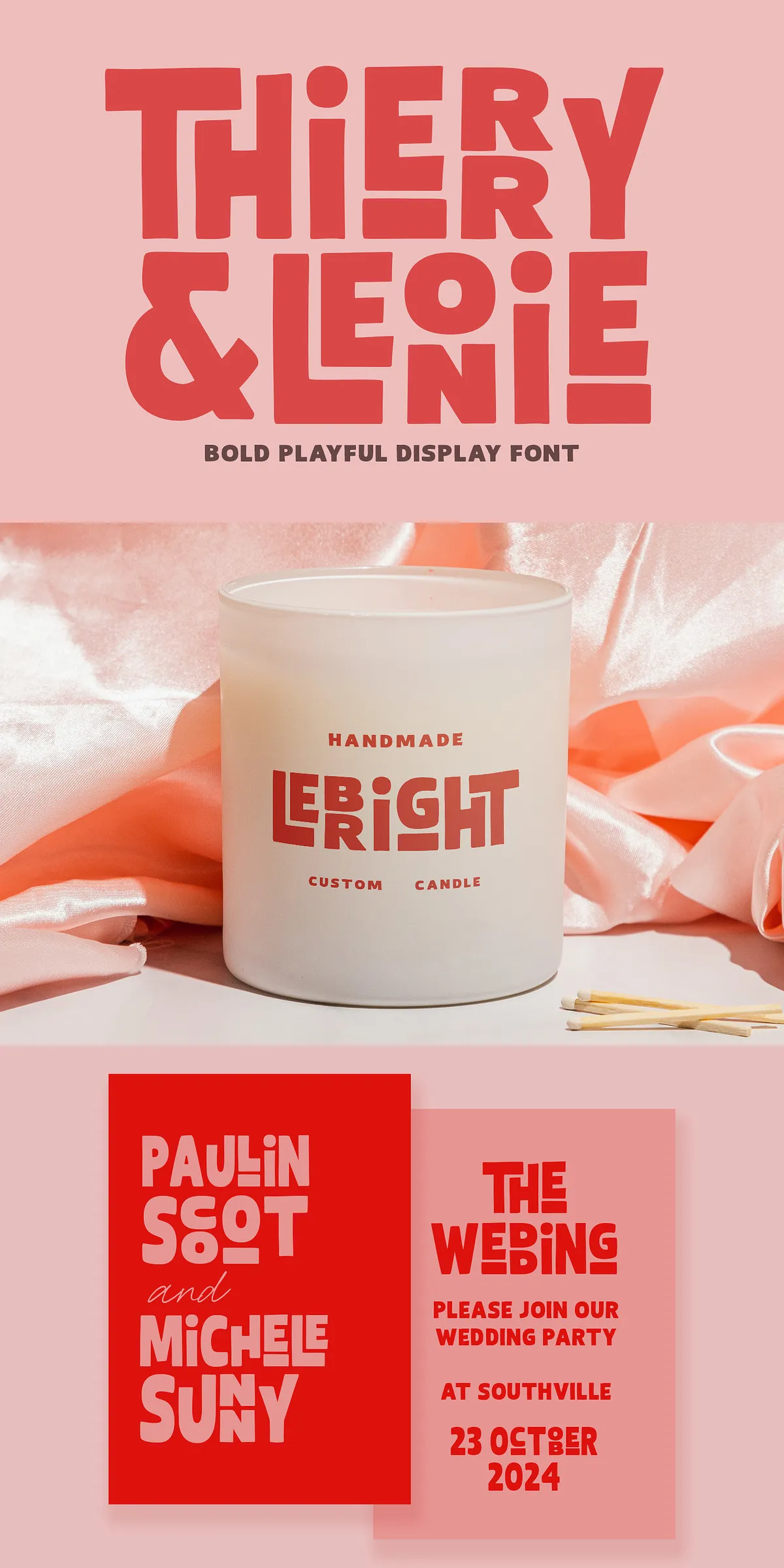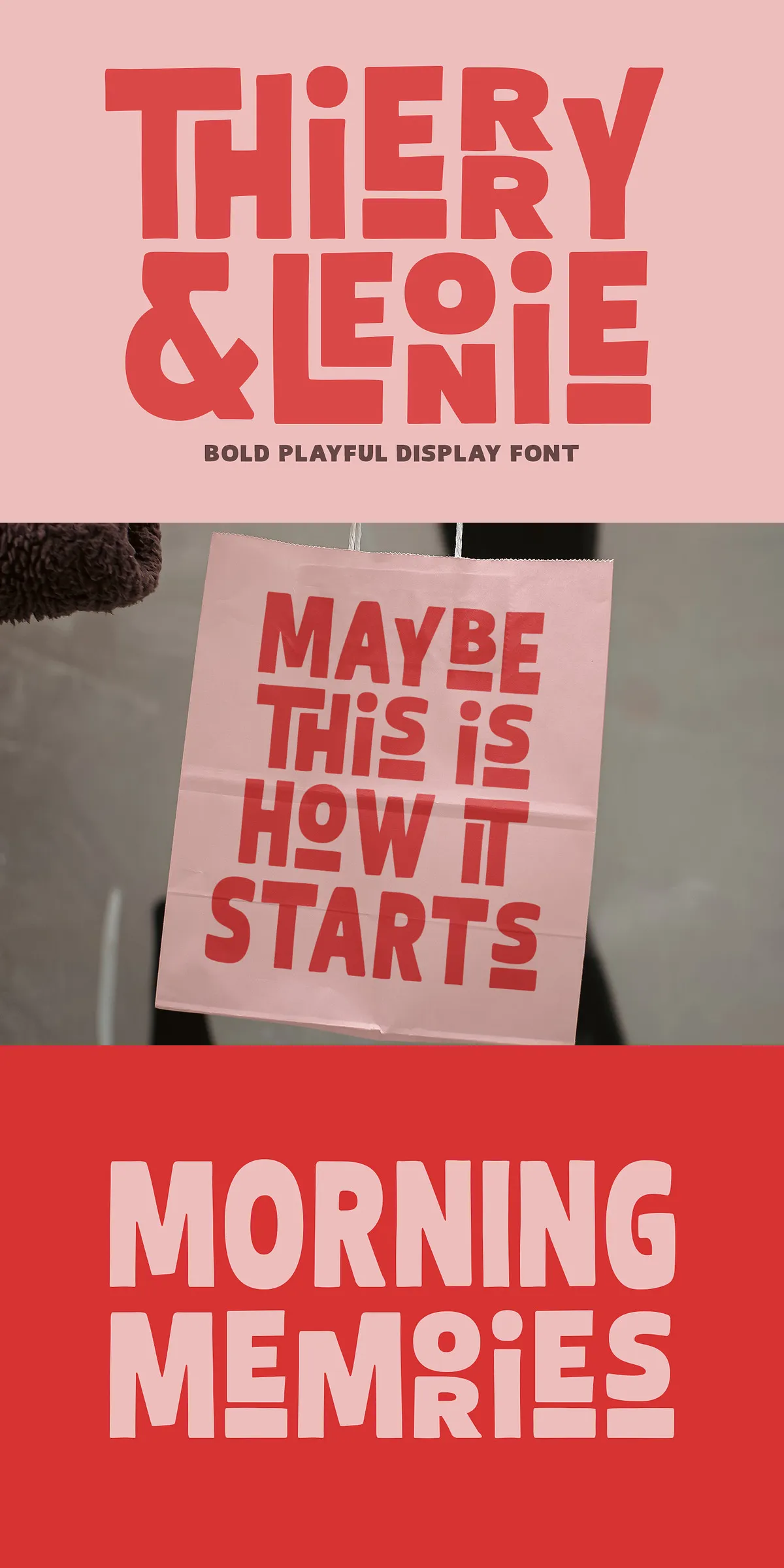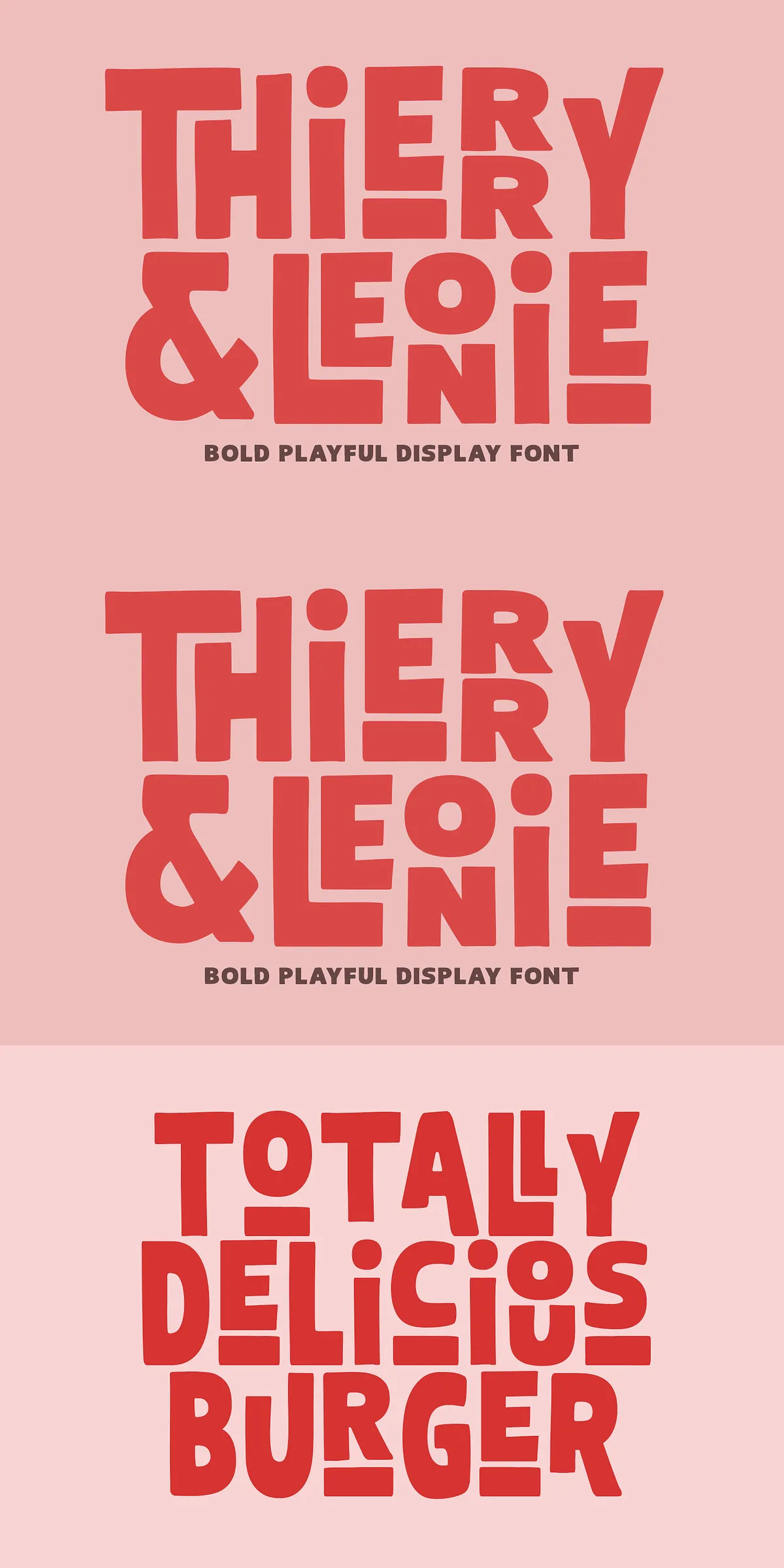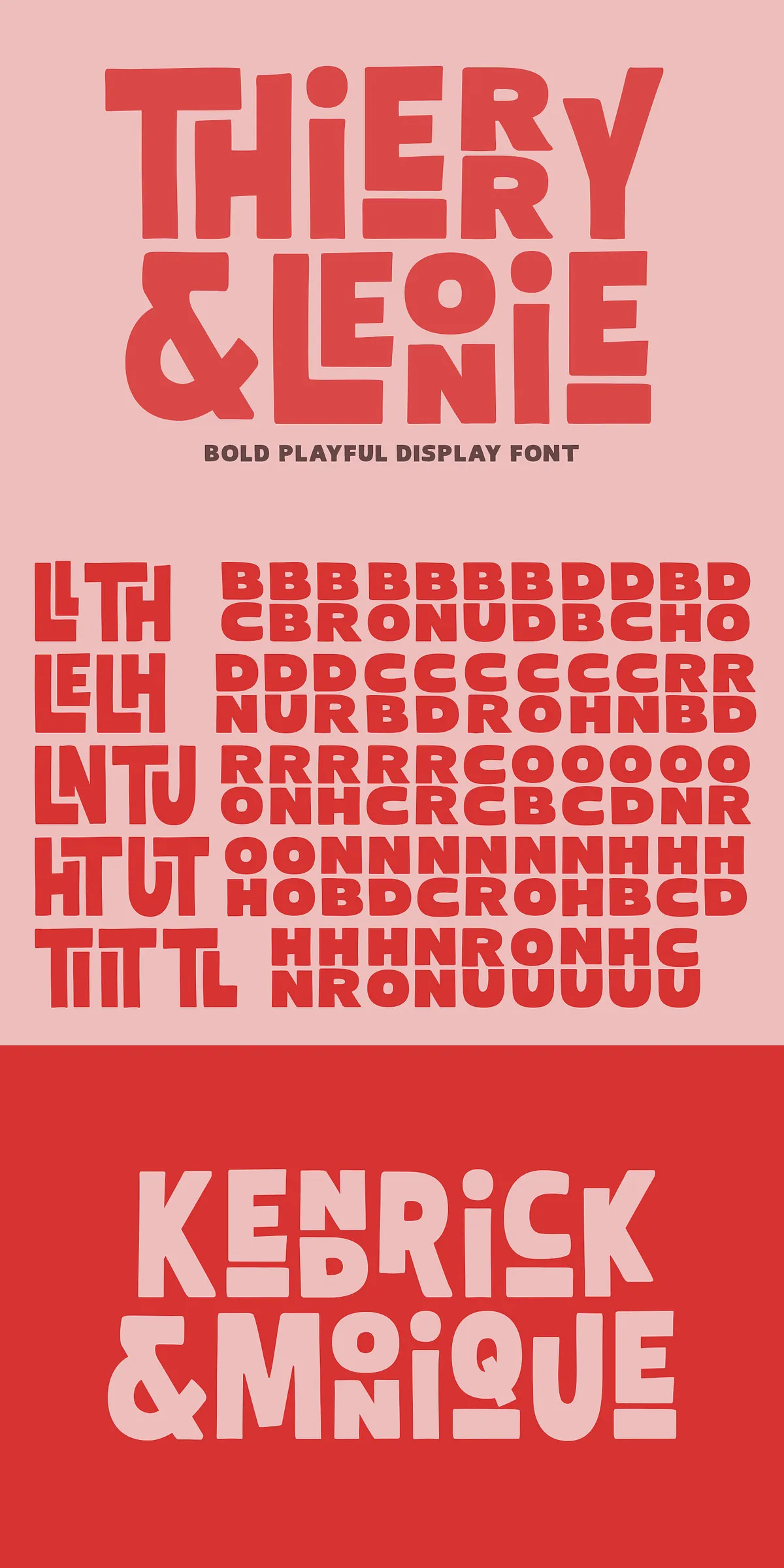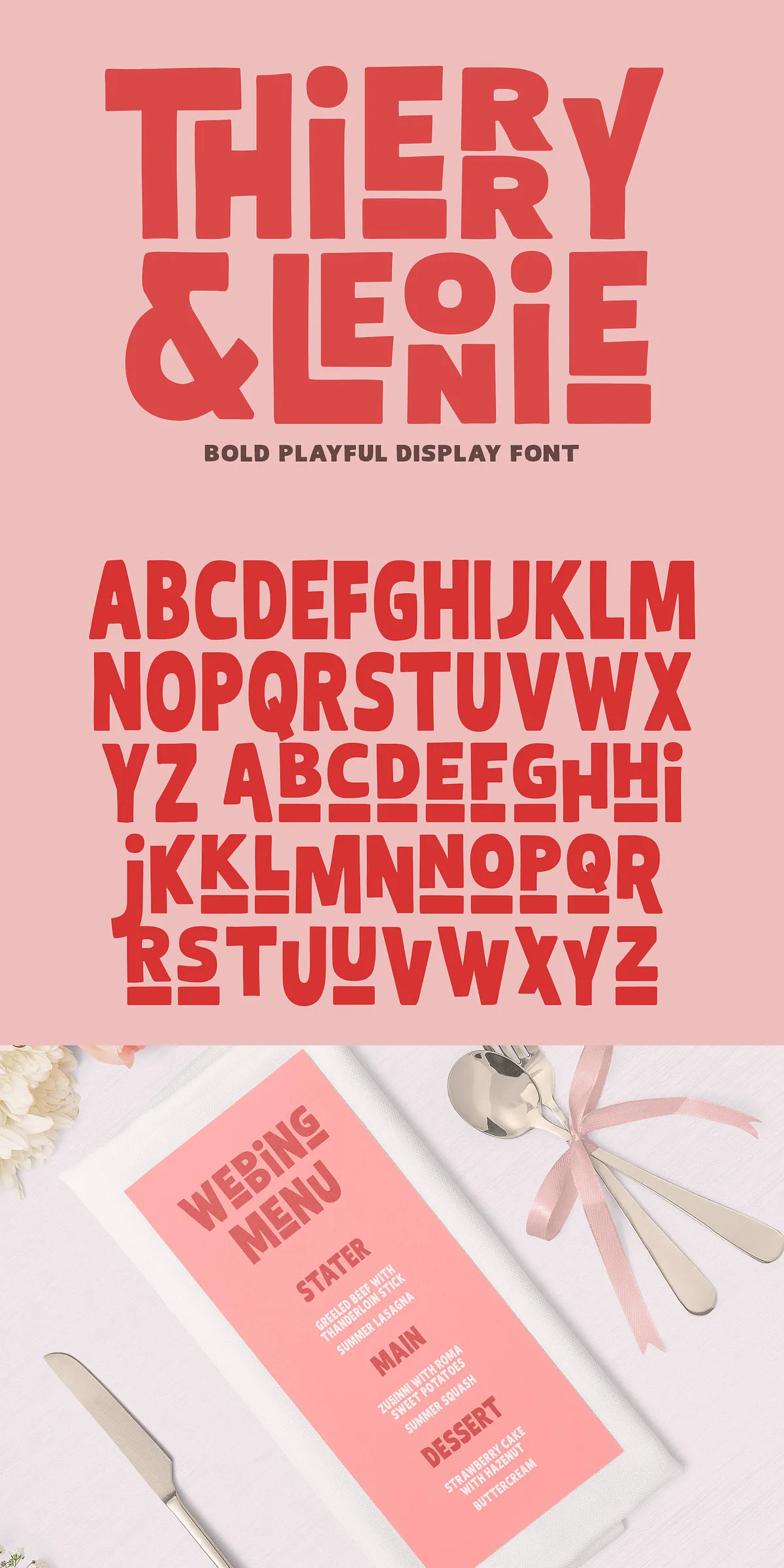
Step into a world where fonts don’t just communicate — they celebrate. Say hello to Thierry Leonie, the playful, cheerful display font that’s quickly becoming the go-to choice for creators who believe design should make people smile. With its bold, condensed structure and a soulful fusion of elegance and whimsy, Thierry Leonie transforms every word into a joyful statement. Whether you’re revamping a brand identity, launching a festival, or designing a children’s book cover, this typeface brings warmth, rhythm, and irresistible charm to your visual storytelling.
Bold Condensed Style, Overflowing with Personality
Thierry Leonie refuses to blend in. Its compact, densely packed letterforms deliver maximum impact in minimal space — perfect for headlines that demand attention and headlines that just want to be loved. The font’s friendly sans-serif design is both modern and nostalgic, echoing the energy of 1970s poster art while feeling fresh and contemporary. Every stroke is carefully crafted to feel approachable, as if the letters themselves are waving at your audience.
- Bold, Condensed Design: Saves space without sacrificing clarity, ideal for tight layouts, social media visuals, and bold branding.
- Abundant Ligatures: Features a rich set of custom ligatures that bring visual harmony and rhythm to text, making your designs feel cohesive and dynamic.
- Full Character Coverage: Includes uppercase and lowercase letters, numerals, punctuation, and essential symbols for complete typographic control.
Where Thierry Leonie Sparks Inspiration
This isn’t a font for quiet projects. Thierry Leonie thrives in environments where energy, fun, and connection matter. Its character is designed to elevate your work from good to unforgettable:
- Brand Identity & Logos: Create a distinctive wordmark that feels personal, memorable, and full of character.
- Posters & Event Campaigns: Use it to draw attention at concerts, pop-up shops, or art exhibitions with playful, inviting headlines.
- Children’s Books & Educational Materials: Its friendly tone is perfect for reading adventures that capture young imaginations.
- Merchandise & Packaging: Make T-shirts, mugs, and boxes stand out with bold, expressive text that feels like a conversation.
- Social Media Graphics: Turn a simple quote into a visual moment — one that stops scrolls and invites likes, shares, and comments.
More Than a Font — It’s a Creative Partner
Thierry Leonie isn’t just about aesthetics. It’s about emotion. It’s about creating a connection. The subtle curves, slight imperfections, and dynamic spacing aren’t mistakes — they’re intentional touches that give the typeface a unique warmth and human touch. It feels like it was designed by someone who loves words and people, not just pixels and code.
Use the built-in ligatures to add musicality to your text — let “th” and “fi” connect in elegant sequences that guide the eye through your message. Experiment with alternate glyphs to vary tone and keep your layout visually exciting. This font is built for creativity, not constraint.
It scales beautifully from a tiny label on a product to a massive mural on a building. Its legibility remains strong, even at small sizes, while its style shines at larger formats. This is a typeface that works hard for you — without ever losing its playful soul.
Stop Designing with Bland. Start Designing with Heart.
Why use a font that speaks in monotones when you can use one that laughs, dances, and brings joy to every project? Thierry Leonie is more than a typeface — it’s an invitation to design with emotion, confidence, and flair.